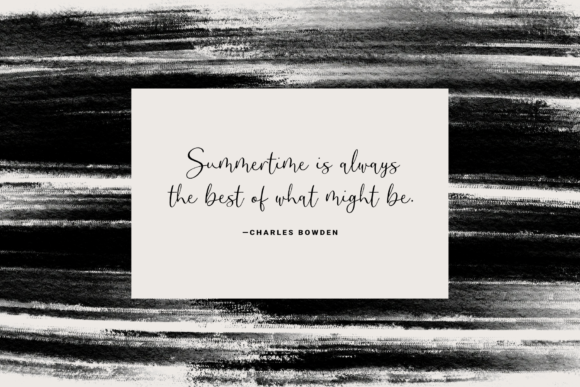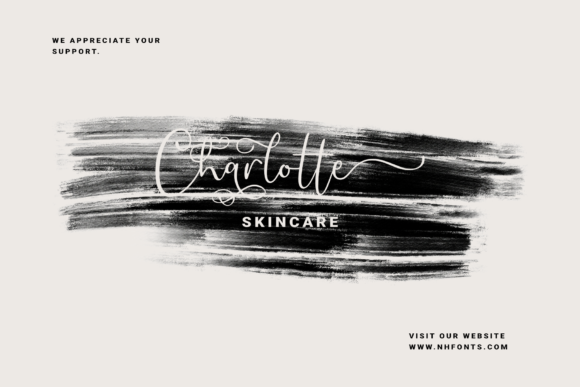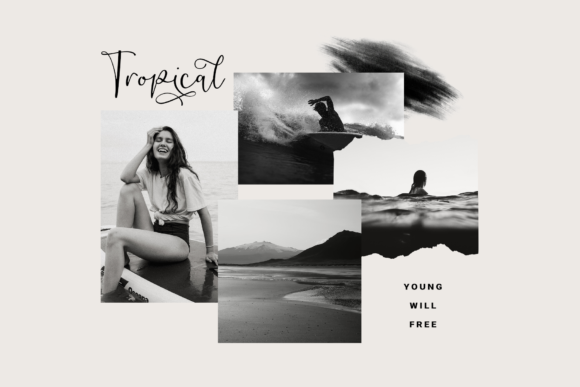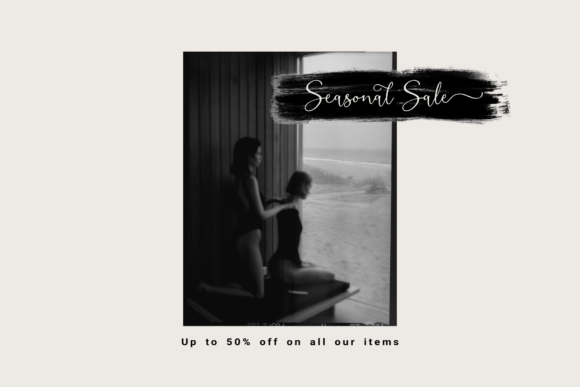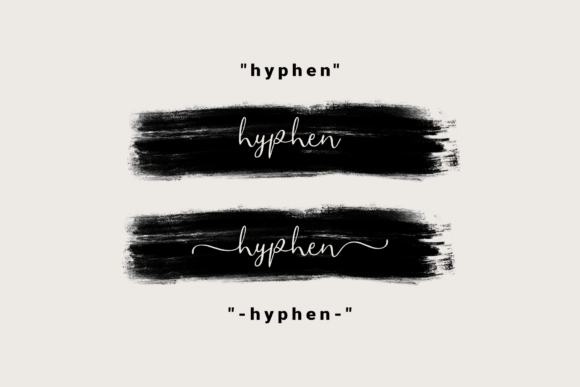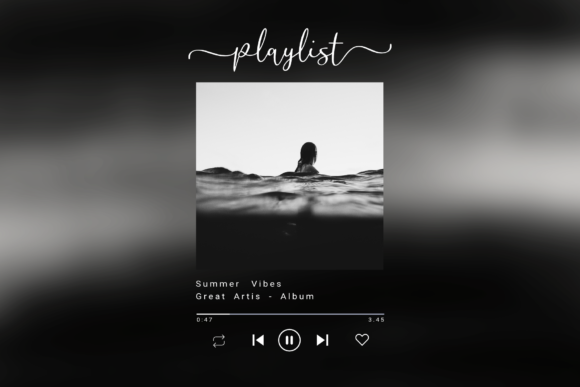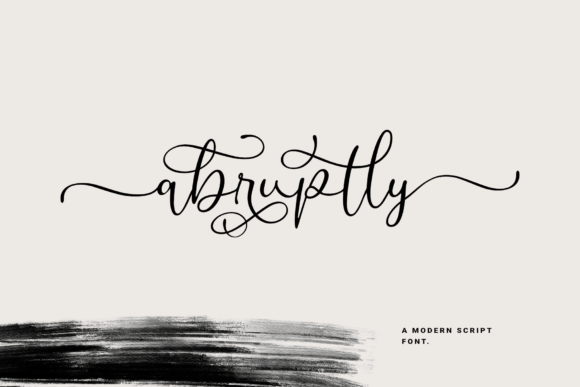
Abruptly Font: Elevate Your Designs with Delicate and Fashionable Script
In the world of typography, fonts play a crucial role in making or breaking a design. For designers and crafters, finding the perfect font that combines elegance and style can be a daunting task. However, if you’re looking for a font that exudes delicacy and fashion, look no further than Abruptly Font. This beautiful script font is perfect for a wide range of branding projects, including logos, t-shirt printing, creative products, and more.
What Makes Abruptly Font Special?
Abruptly Font is a delicate and fashionable script font that is designed to add a touch of elegance to any design project. Its unique and stylish lettering makes it perfect for designers and crafters who want to create visually stunning designs that stand out from the crowd. Whether you’re working on a logo, t-shirt design, or any other creative project, Abruptly Font is sure to impress.
Key Features of Abruptly Font
- PUA Encoded: Abruptly Font is PUA (Private Use Area) encoded, which means that you can access all of the glyphs and swashes with ease. This feature makes it easy to customize your designs and add a personal touch.
- Delicate and Fashionable: Abruptly Font is designed to be delicate and fashionable, making it perfect for designs that require a touch of elegance.
- Script Font: As a script font, Abruptly Font is perfect for creating beautiful and flowing designs that add a touch of sophistication to any project.
- Versatile: Abruptly Font is versatile and can be used for a wide range of design projects, including logos, t-shirt printing, creative products, and more.
Why Choose Abruptly Font?
There are many fonts available in the market, but Abruptly Font stands out from the rest due to its unique features and benefits. Here are some reasons why you should choose Abruptly Font for your next design project:
- Unique and Stylish: Abruptly Font is designed to be unique and stylish, making it perfect for designers and crafters who want to create visually stunning designs.
- Ease of Use: Abruptly Font is easy to use and can be accessed with ease, thanks to its PUA encoding.
- High-Quality: Abruptly Font is a high-quality font that is designed to deliver exceptional results.
Tips and Tricks for Using Abruptly Font
Here are some tips and tricks to help you get the most out of Abruptly Font:
- Experiment with Different Sizes: Abruptly Font looks great in different sizes, so experiment with different sizes to find the one that works best for your design.
- Combine with Other Fonts: Abruptly Font can be combined with other fonts to create a unique and stylish design.
- Use Swashes and Glyphs: Abruptly Font comes with a range of swashes and glyphs that can be used to add a personal touch to your design.